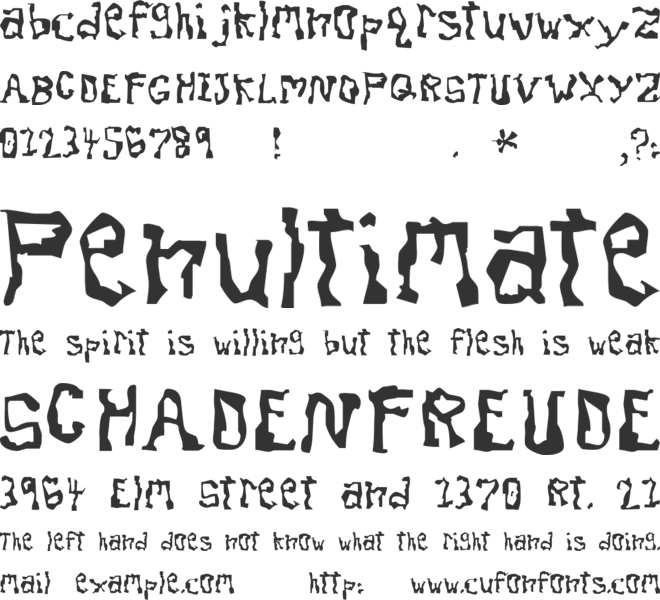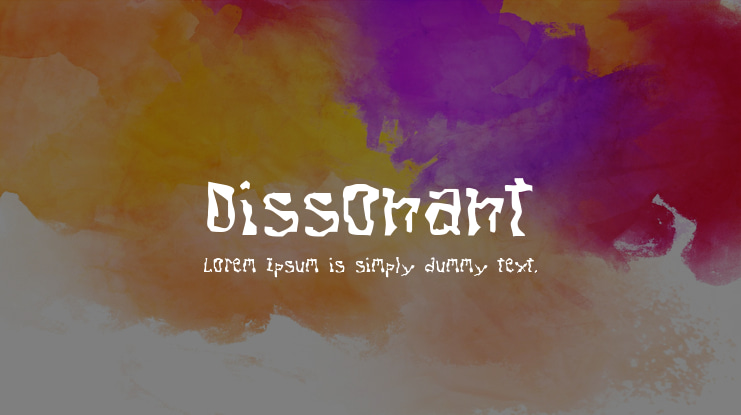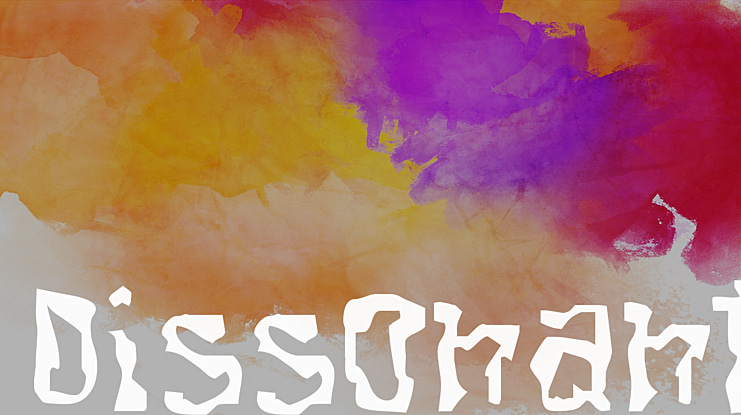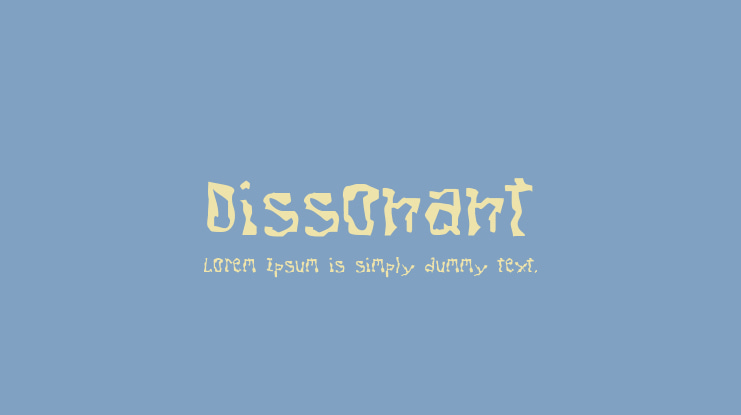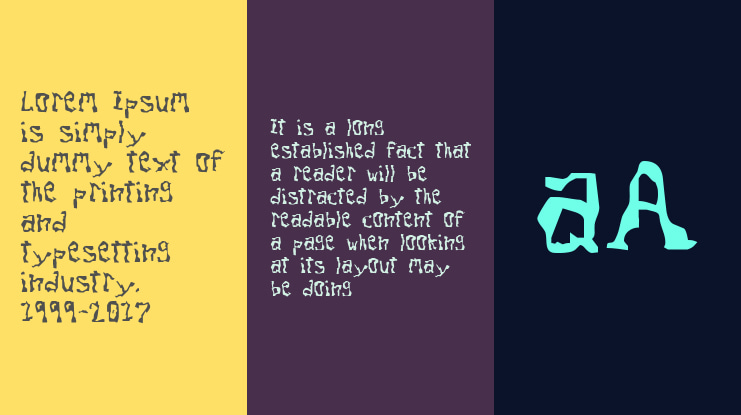
(Caps, lower, numbers, some punctuation) is a scary gothic-looking font. It is best suited for headlines and decorative purposes, but is readable as small as 10 point.